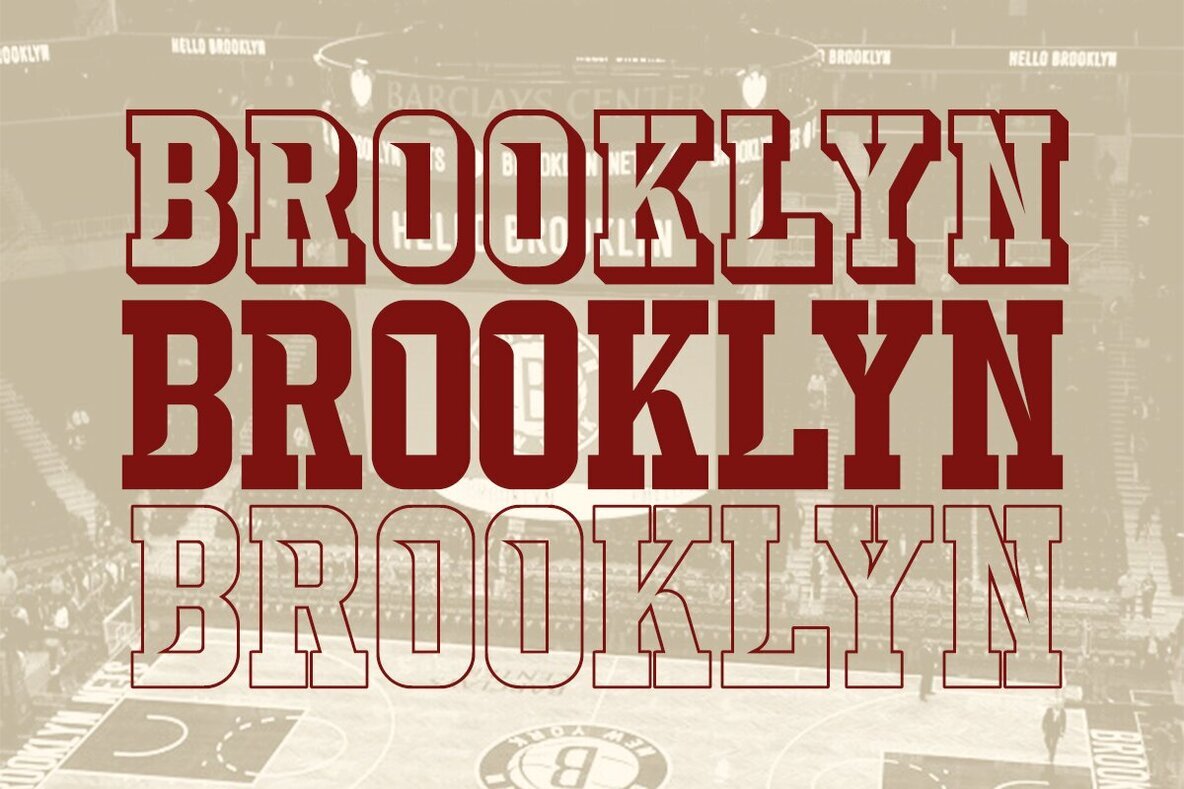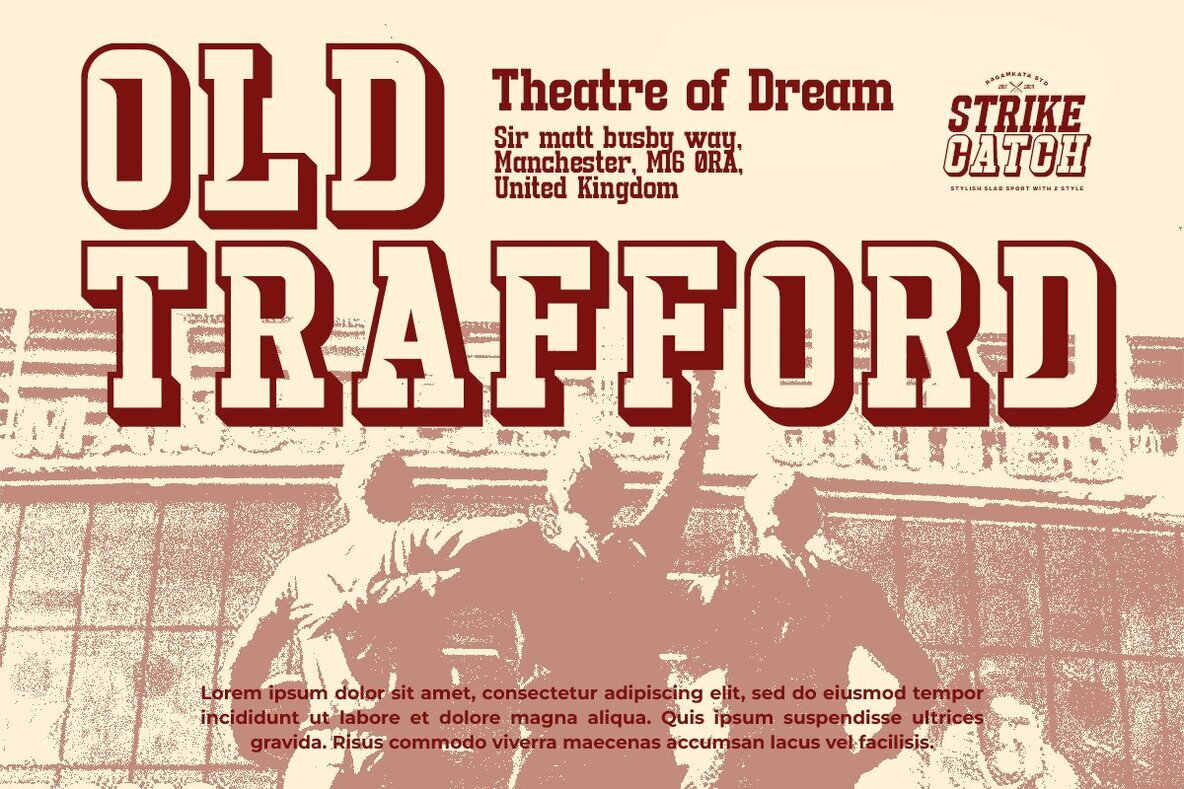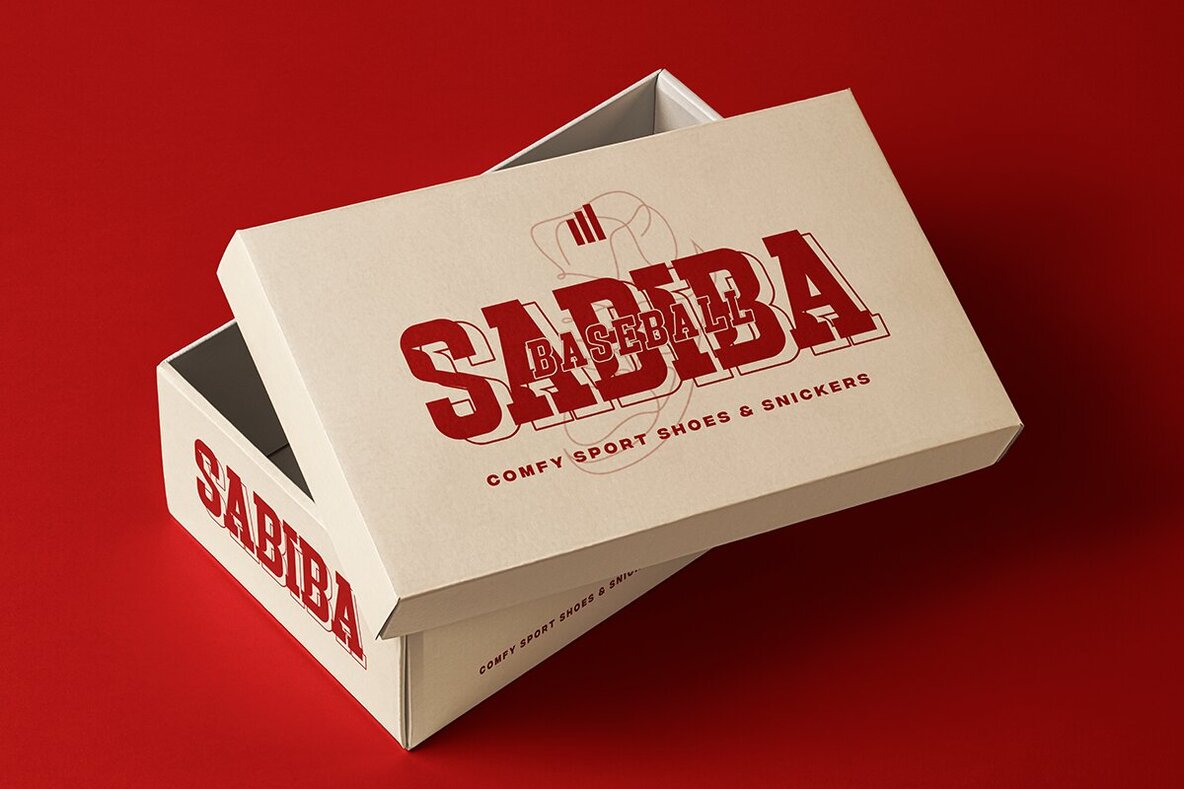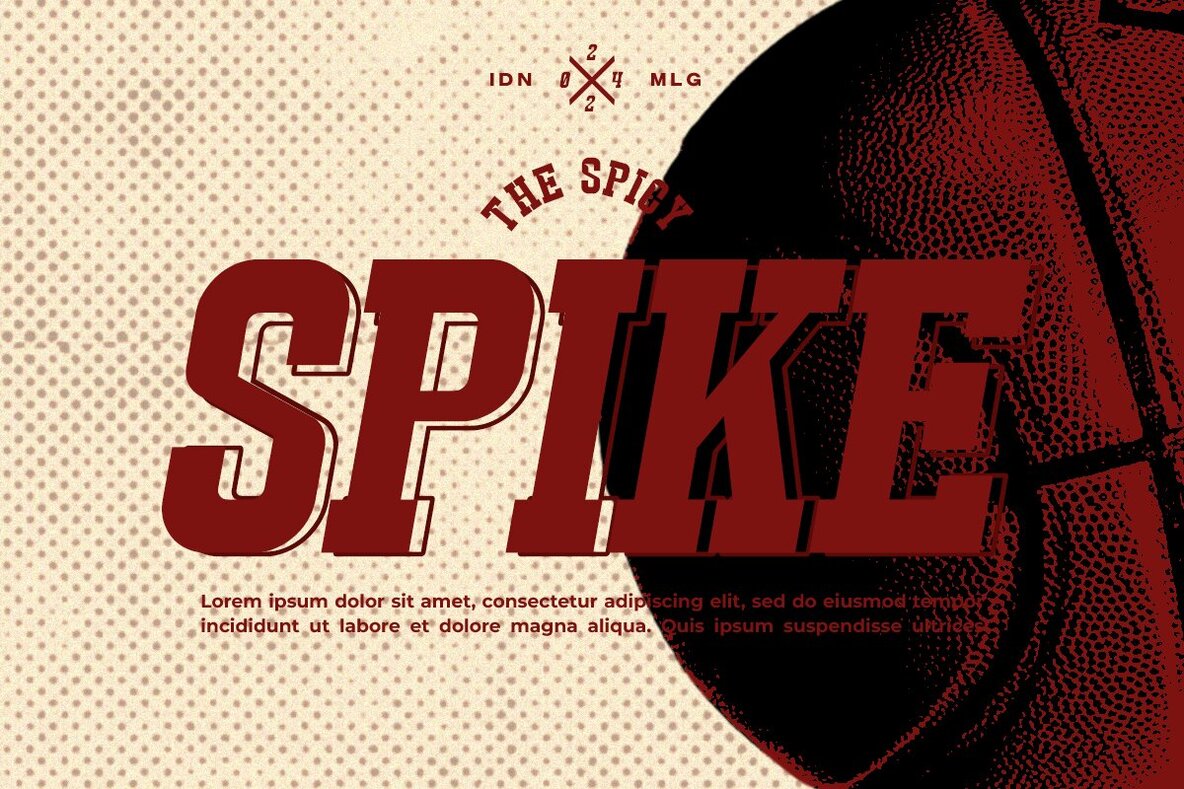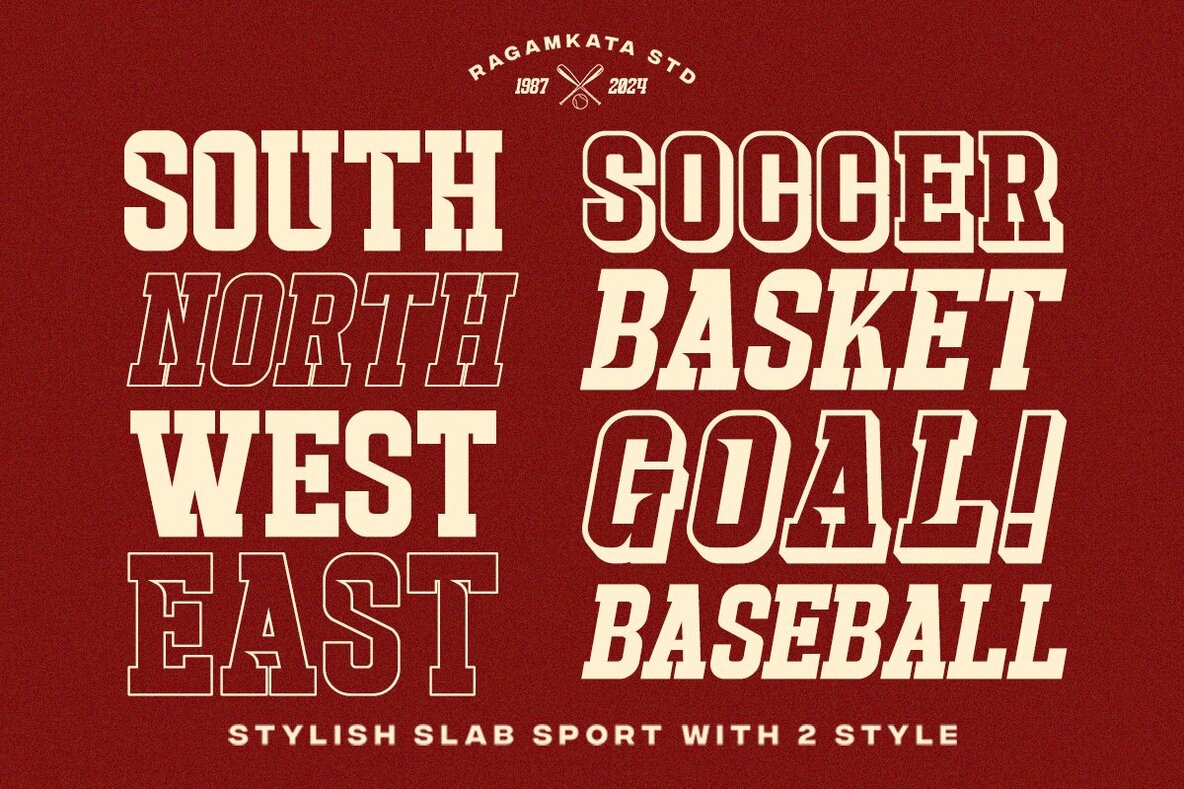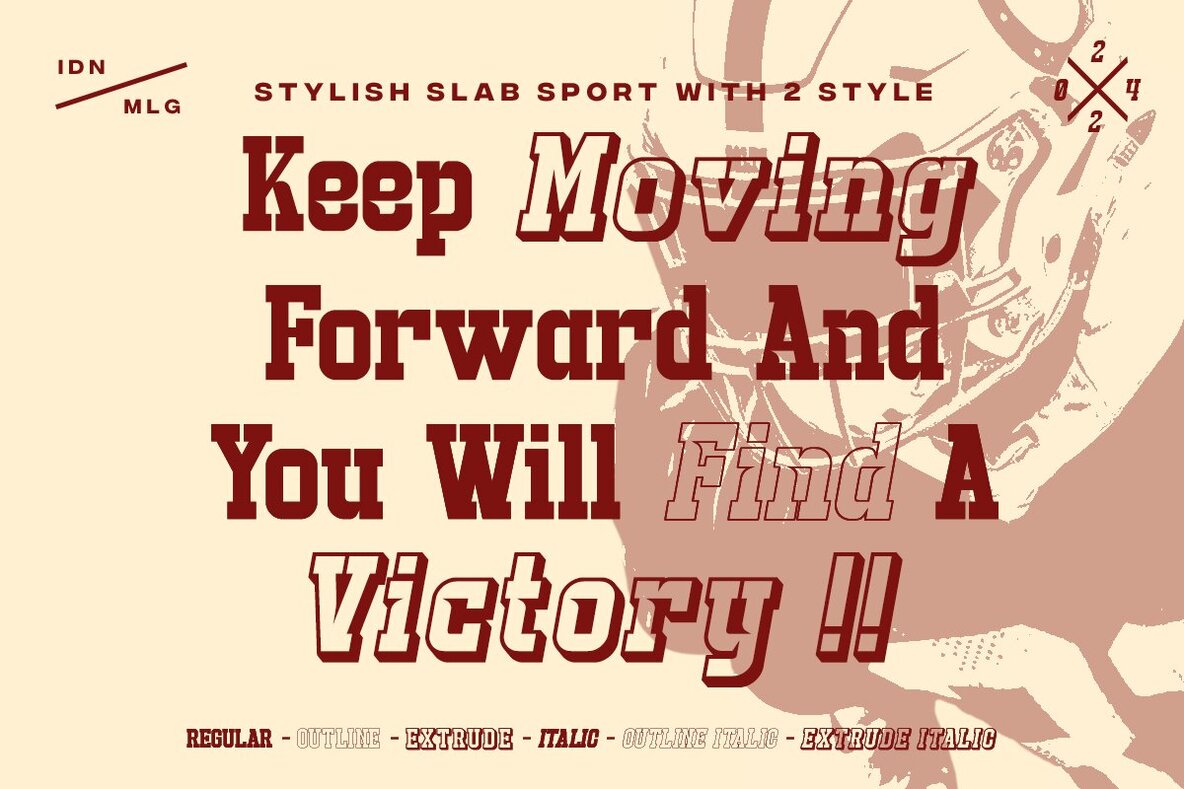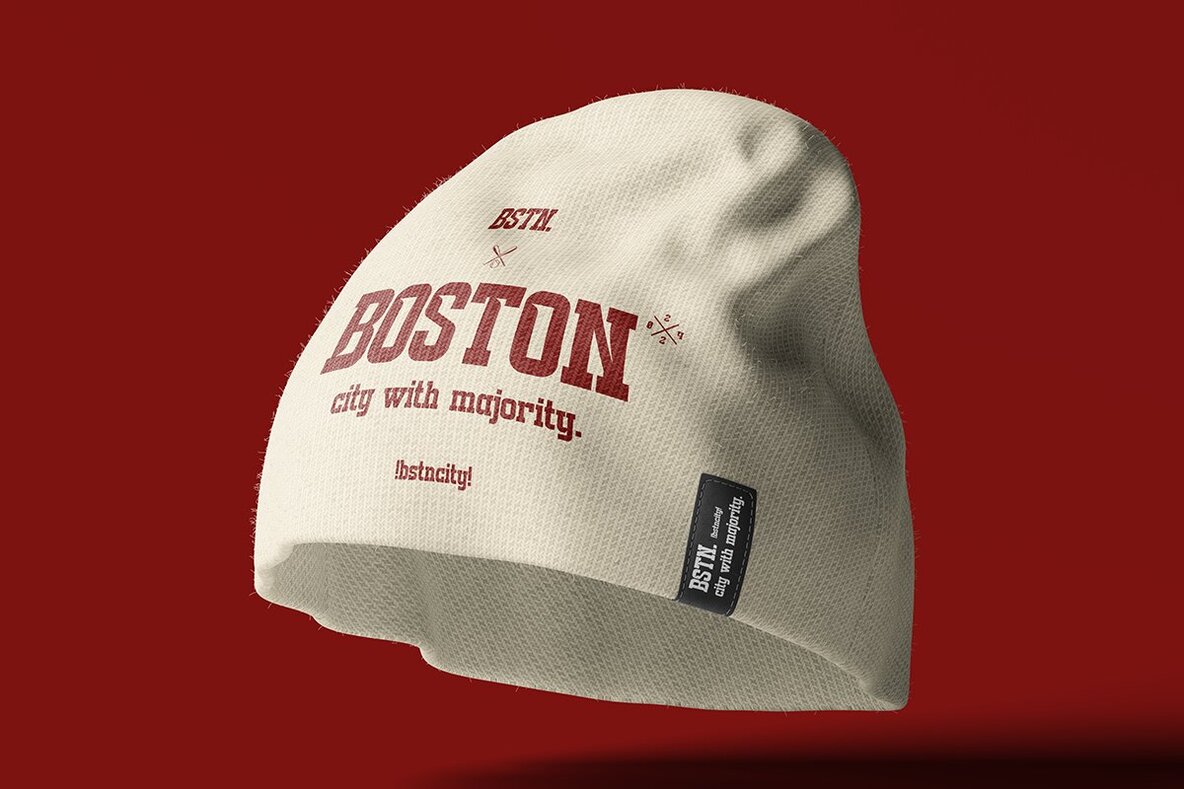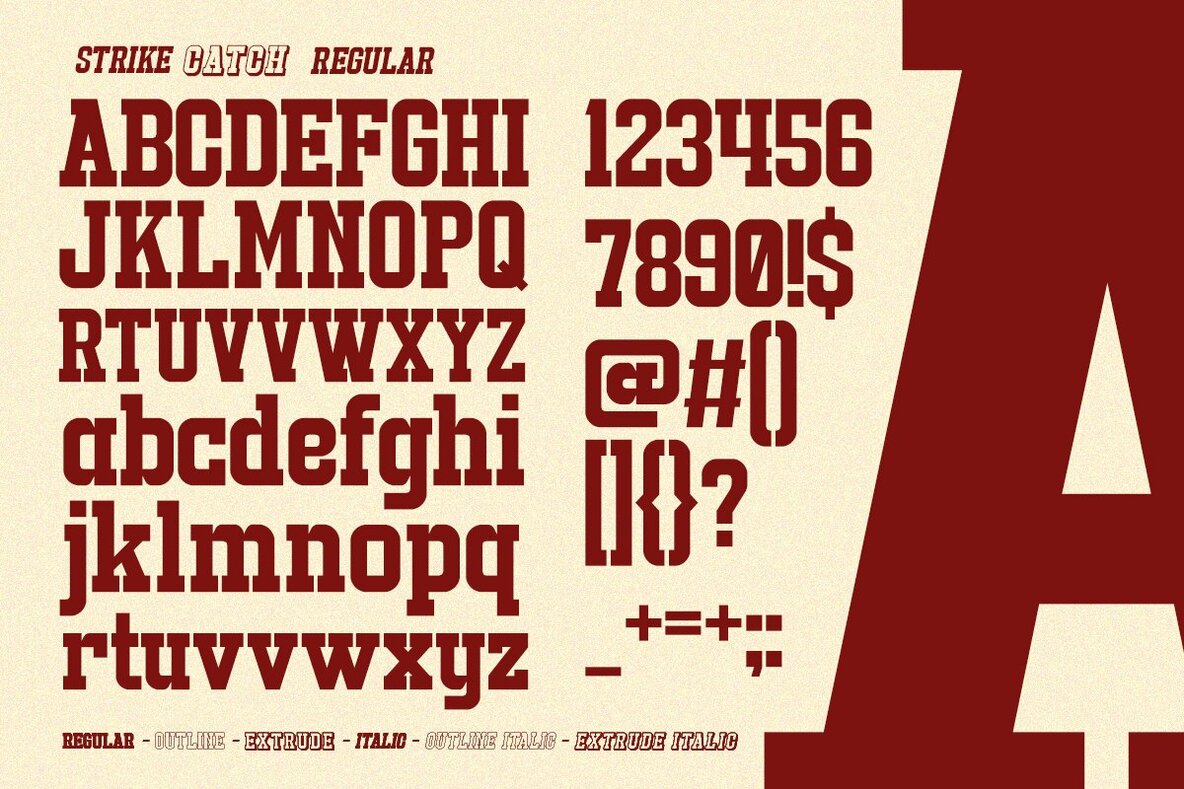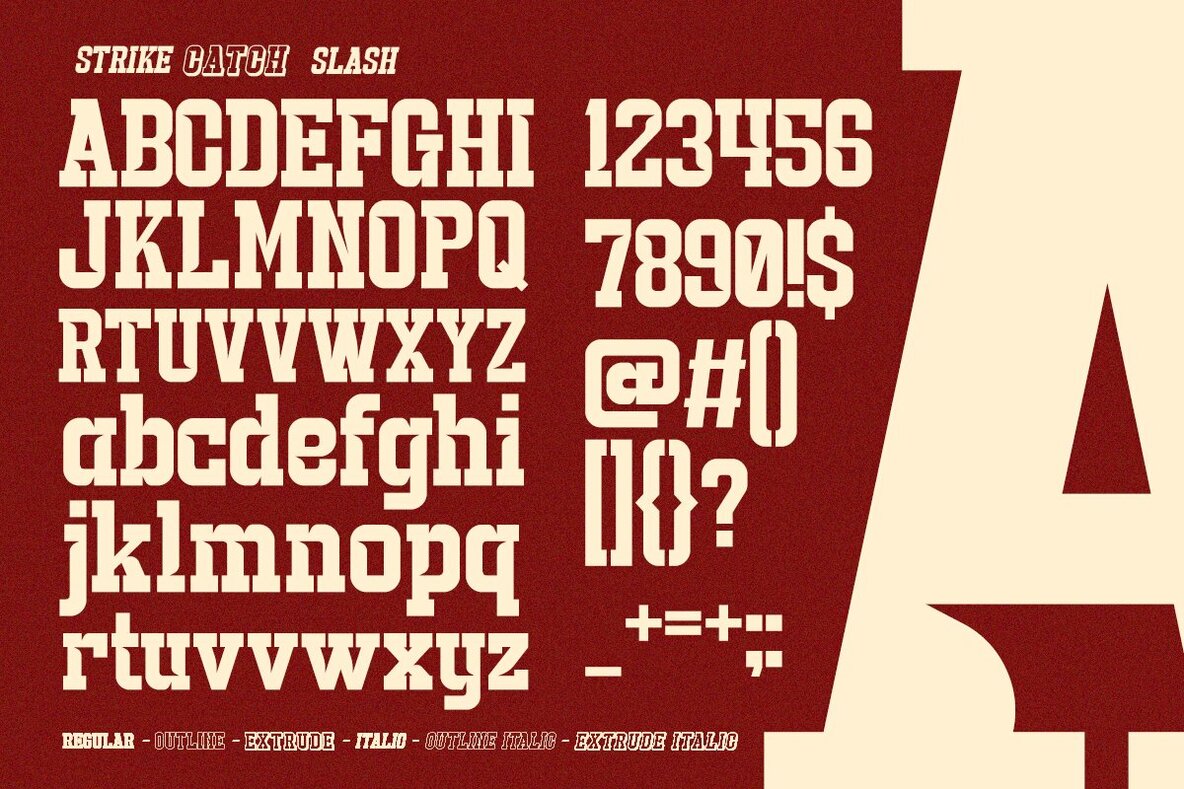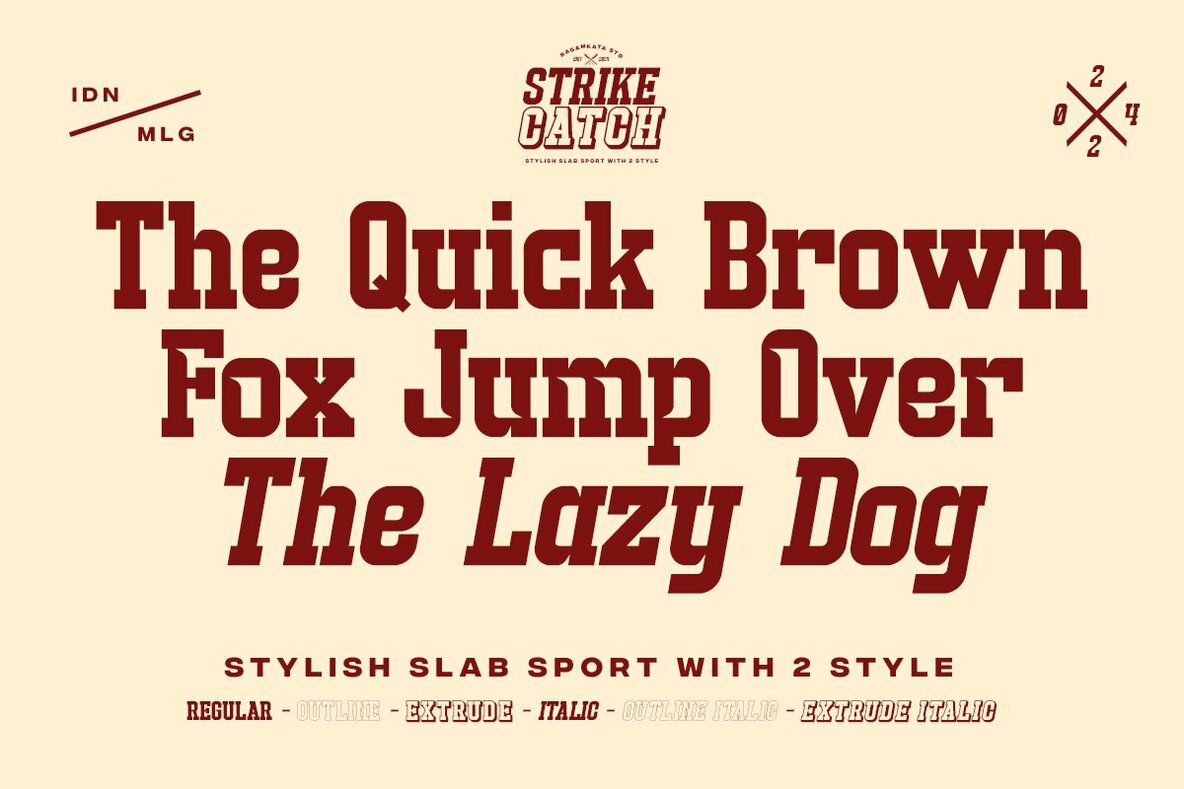
Strike Catch Font
Introducing Strike Catch, a stylish slab serif font that merges the vigor of modern sports with the sophistication of classic design. Ideal for sports headlines, logos, branding, and more, Strike Catch offers 12 unique styles, including Regular, Italic, Outline, Extrude, Slash, and their various combinations. Its smooth curves, clear alternates, and sleek aesthetics ensure readability and a dynamic presence. The inclusion of slash characters adds variation and creativity to your designs, making this font highly versatile for multiple projects.
Strike Catch is suitable for invitations, magazines, product packaging, posters, and more. Whether for personal projects, studios, corporate needs, or creative agencies, this font provides a powerful, attractive, and modern touch to any design. Additional features include strong, confident letterforms, unique alternate characters, punctuation and numbers, multilingual support, and easy installation. Compatible with both PC and Mac, Strike Catch is accessible in Adobe Illustrator, Adobe Photoshop, Microsoft Word, and Canva, with PUA encoded characters that are fully accessible without needing additional design software.